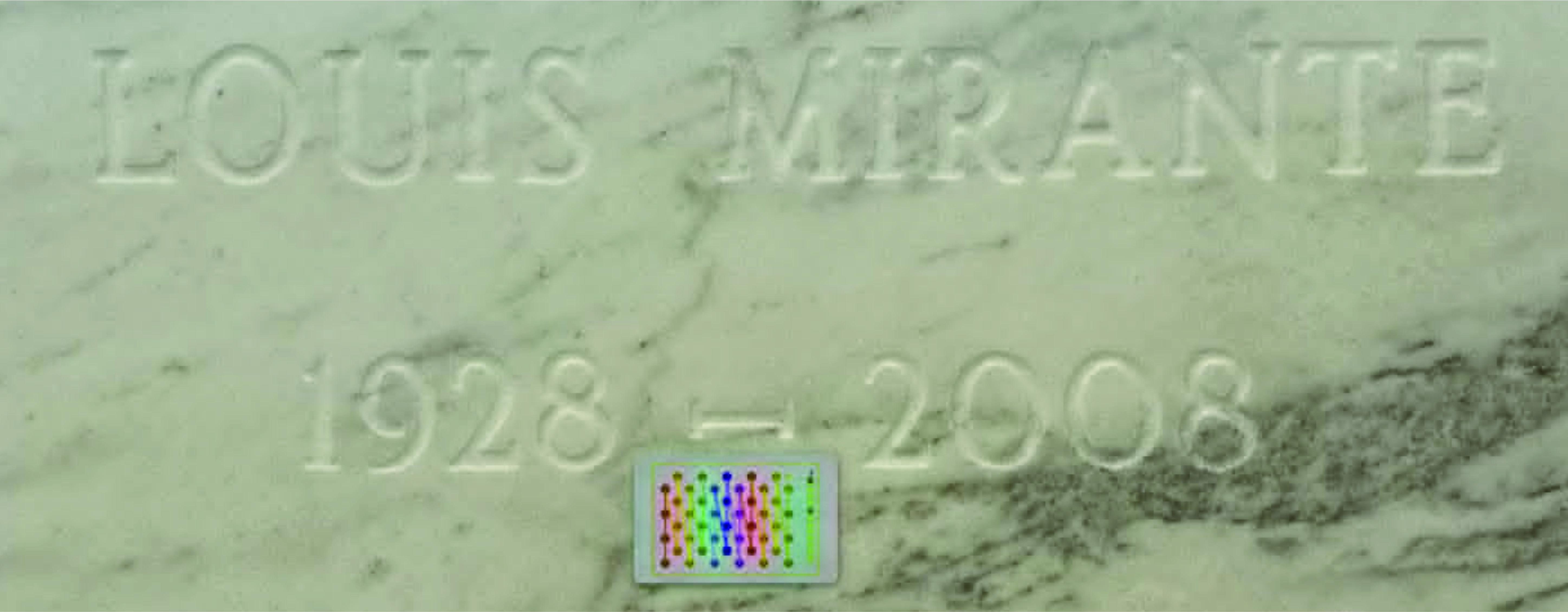
Hello Lionel, sorry for the delay. This is a version of Modified Roman Raised. Unfortunately, I am not sure of the exact version. In the image it appears that there is a gap in the 9 where it would normally connect back in on itself and I am not aware of any versions of the font, either digital or any old plastic alphabets that have this feature.